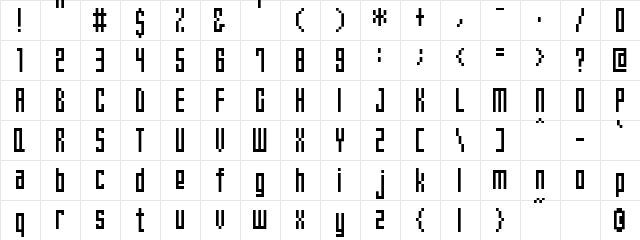
Electronica Nine
Design Context for Electronica Typeface
Electronica is a composed and adaptable typeface that performs quietly and consistently across a wide range of design contexts.
Pro Tip: Use Electronica in both headline and body roles to test its range before committing to a single application.